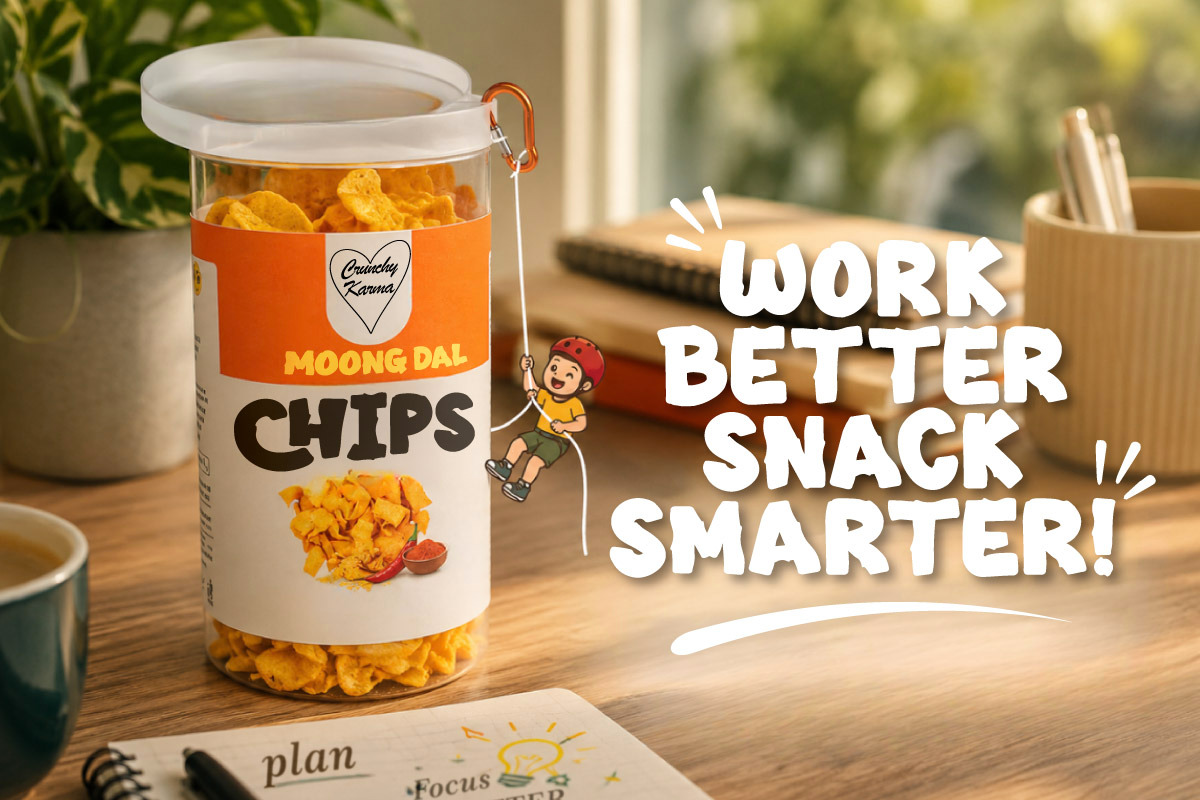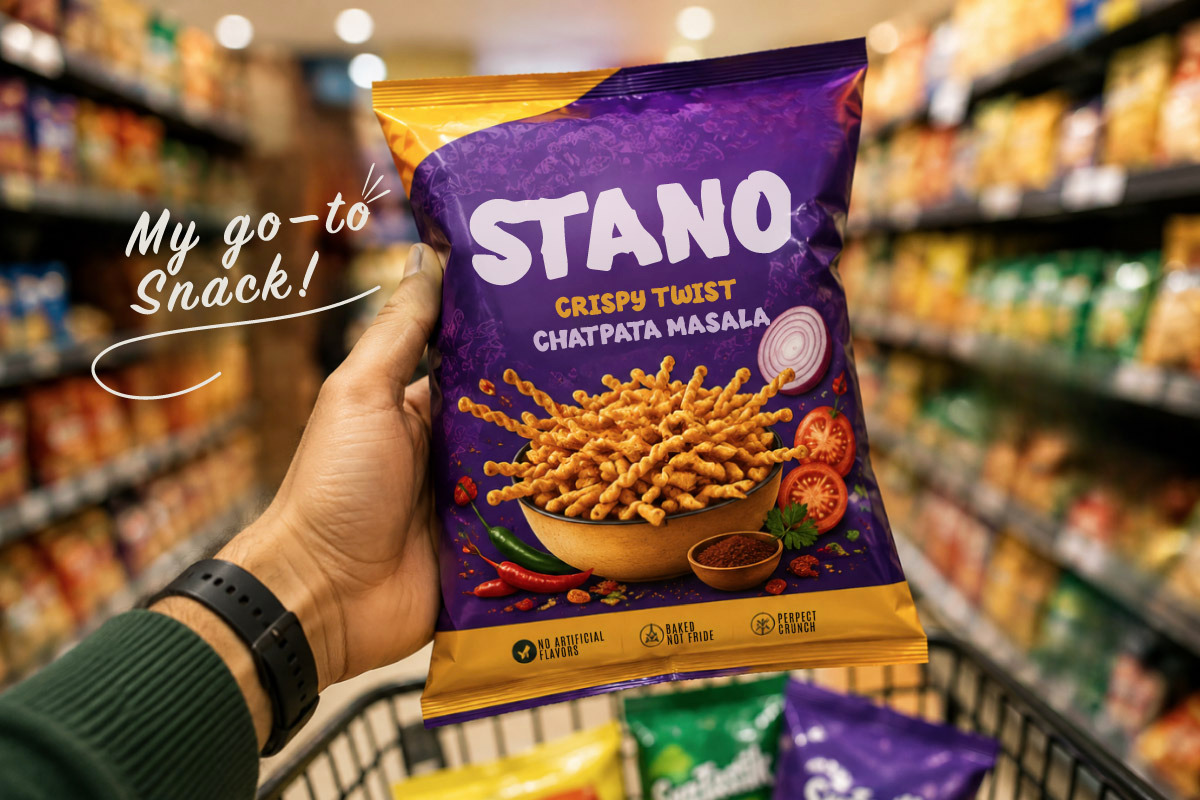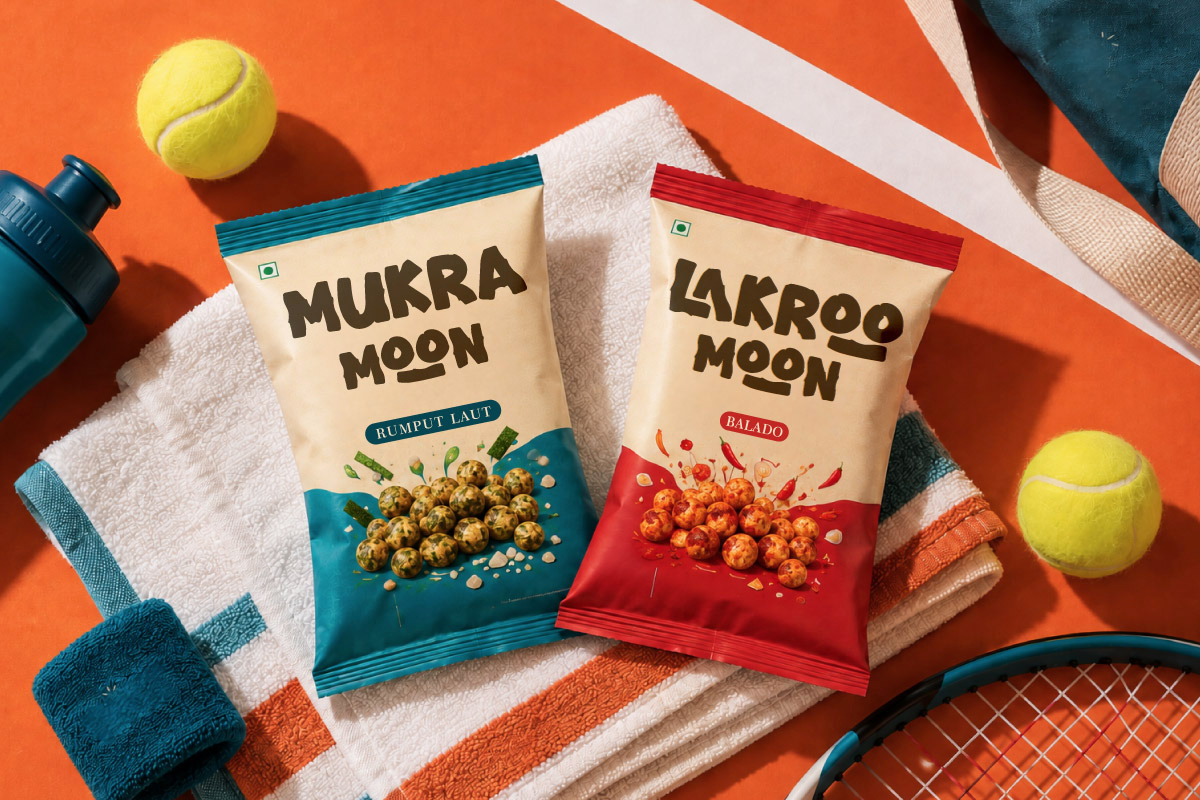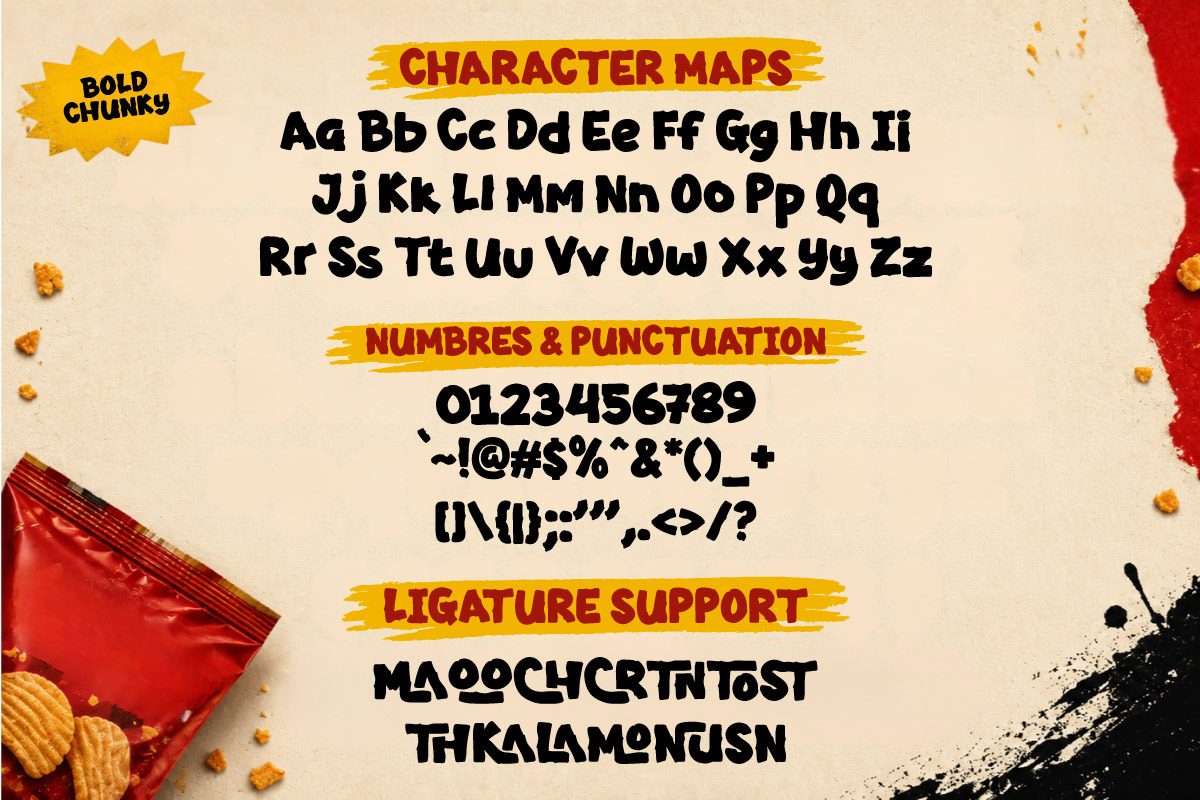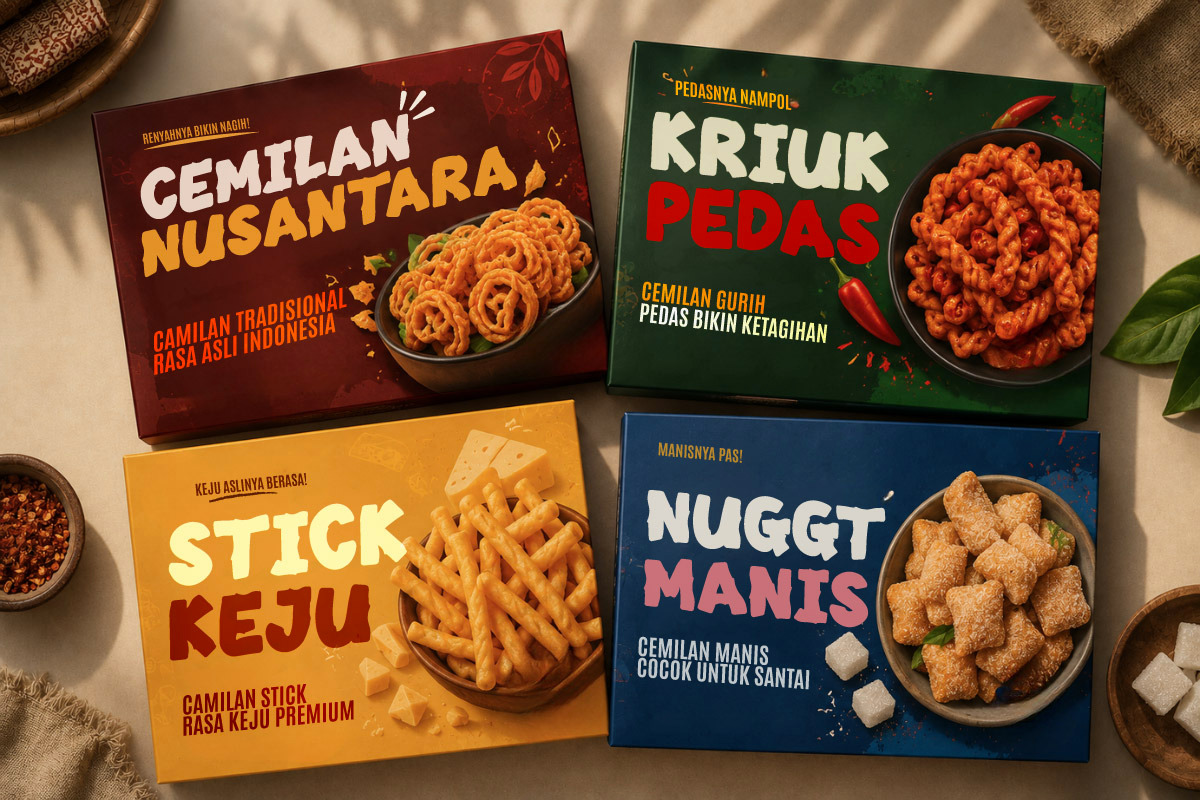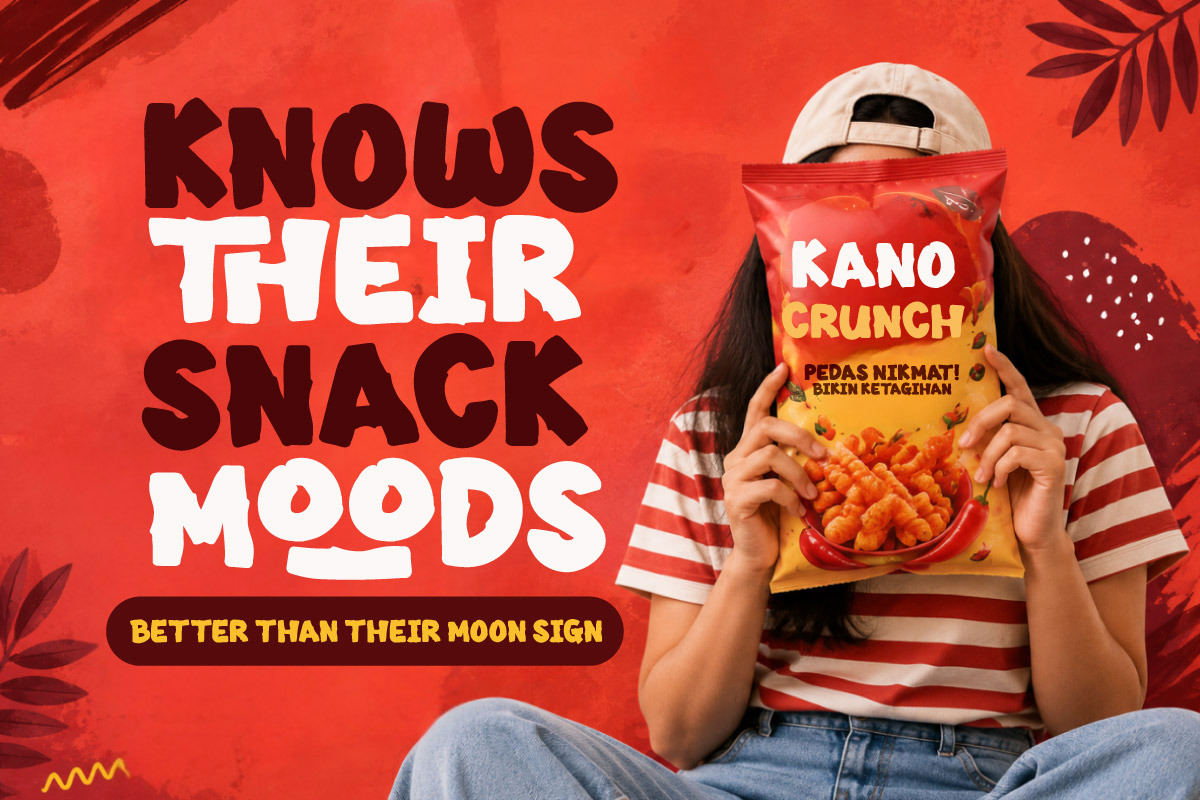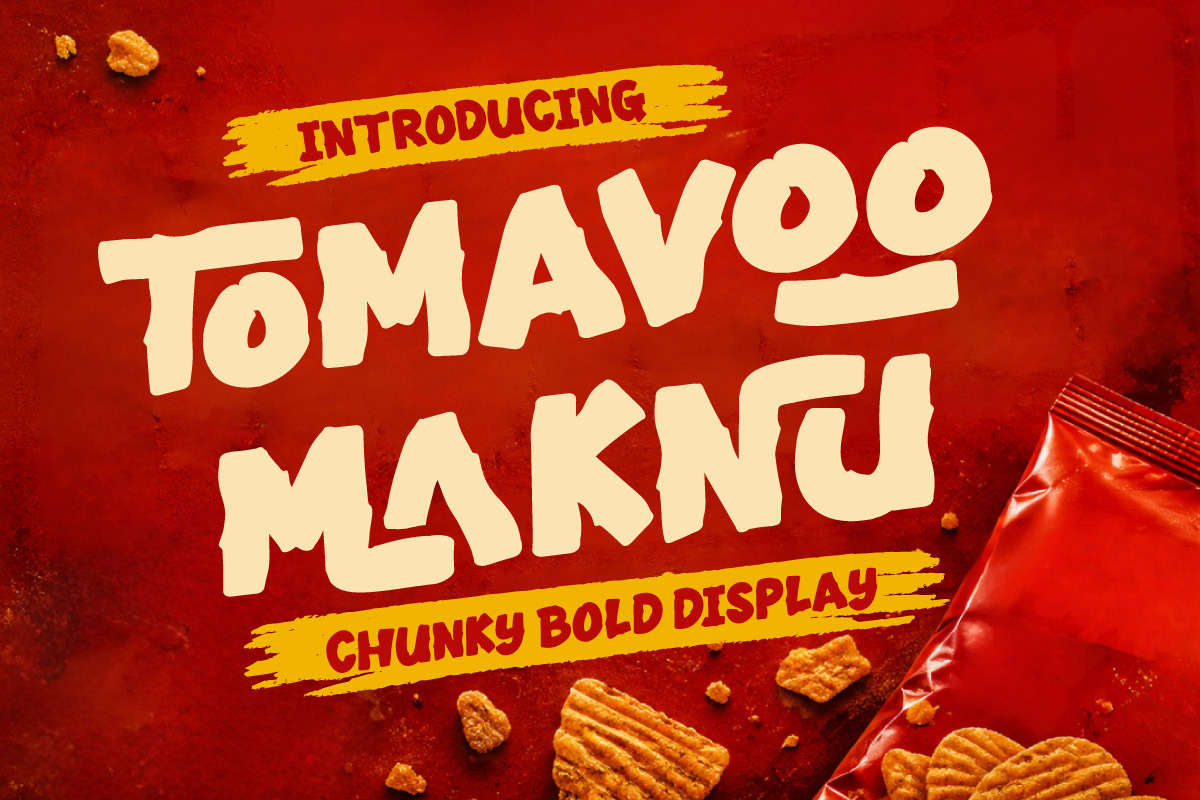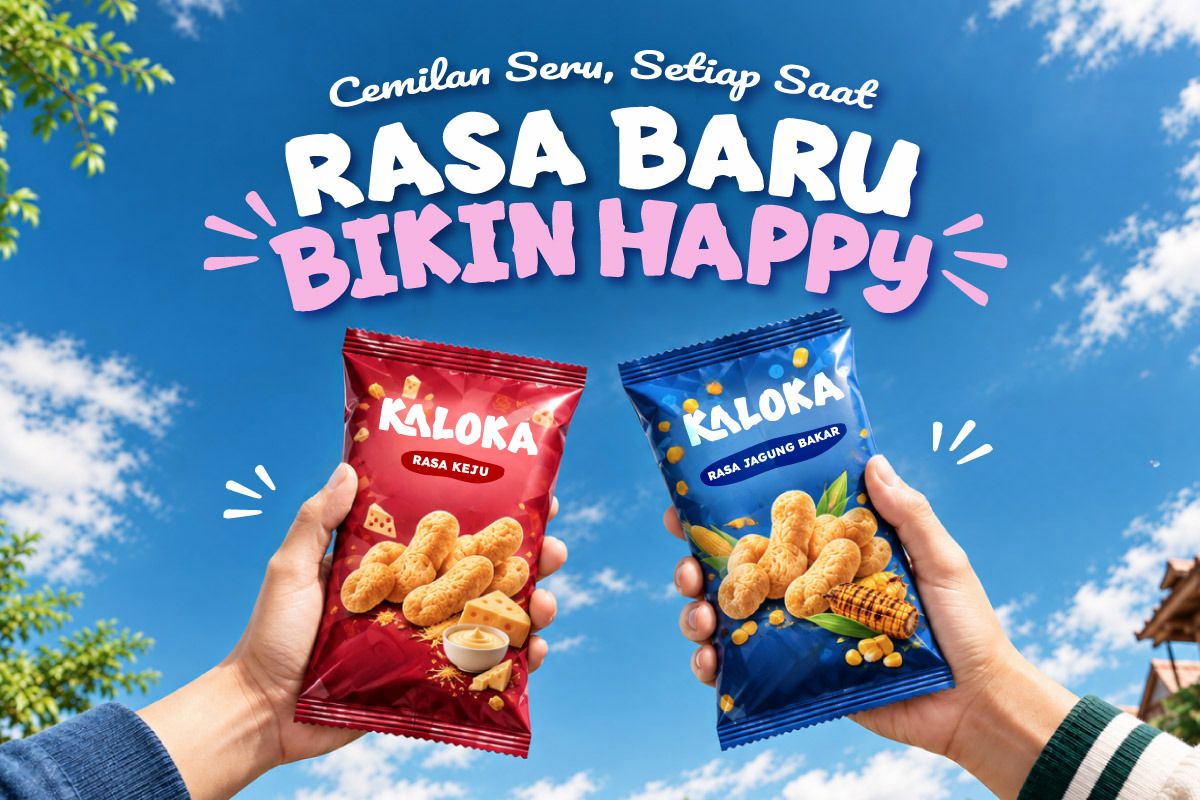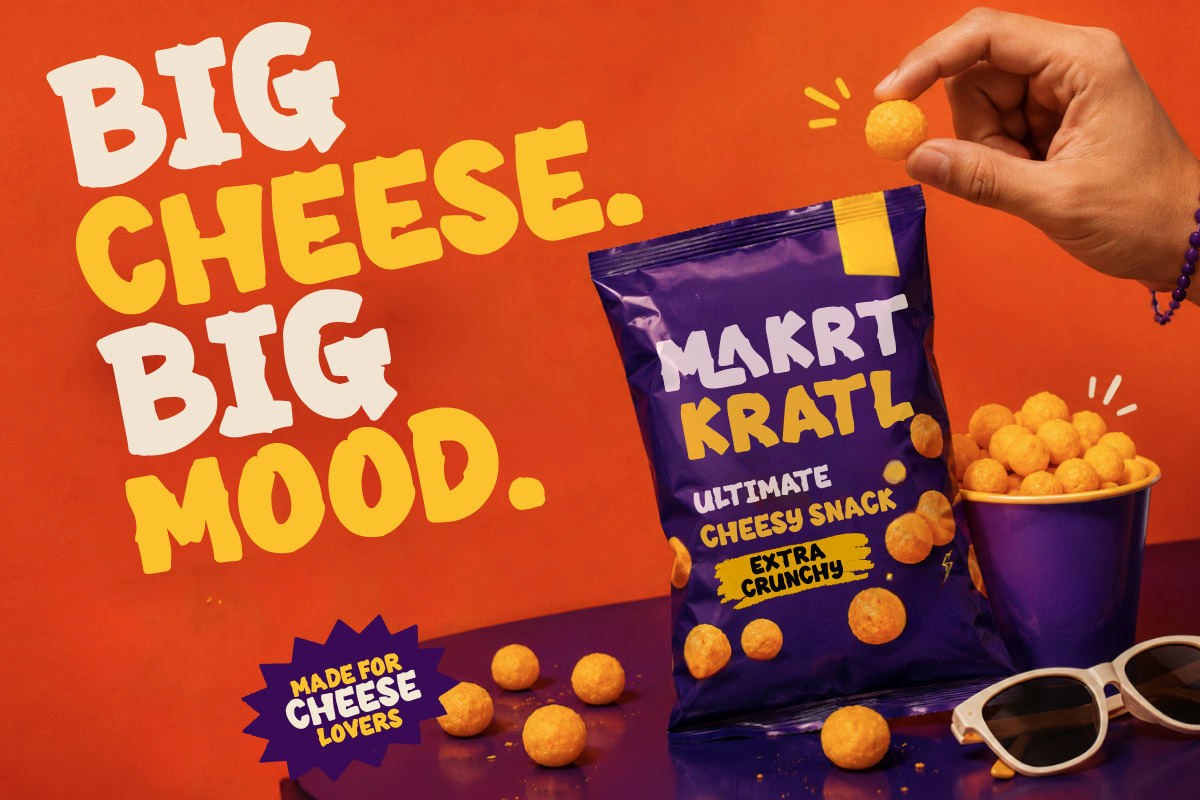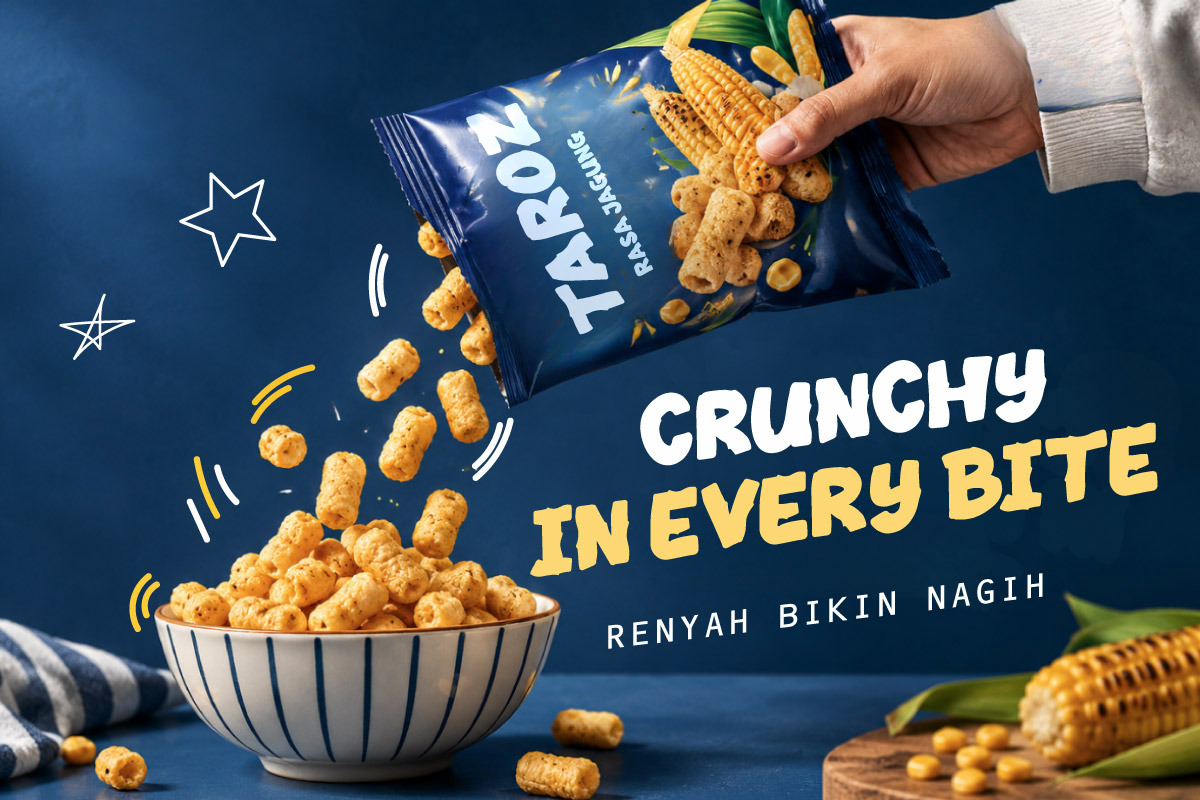
Tomavoo Maknu - Chunky Bold Font
Tomavoo Maknu is a bold, sturdy, and energetic display font rich in character and culinary appeal—designed specifically for the fast-paced food, beverage, and FMCG industries. With its bold letterforms, smooth organic curves, and dynamic, cheerful vibe, this typeface is crafted to instantly grab attention amidst the clutter of retail and supermarket shelves.
Engineered for maximum visual impact at the point of sale, Tomavoo Maknu is ideal for snack pouches, foil packaging, ready-to-eat meal containers, milk cartons, and in-store promotional materials. Its bold, high-visibility structure ensures that product names, flavor details, and marketing headlines remain clearly legible and appetizing from a distance, while simultaneously fostering strong brand trust and customer engagement.
Featuring uppercase and lowercase characters, numerals, punctuation, and a set of custom ligatures, Tomavoo Maknu offers limitless flexibility for graphic designers and packaging strategists. Make your food brand stand out and captivate audiences with the bold, cheerful, and appetizing typographic identity of Tomavoo Maknu.